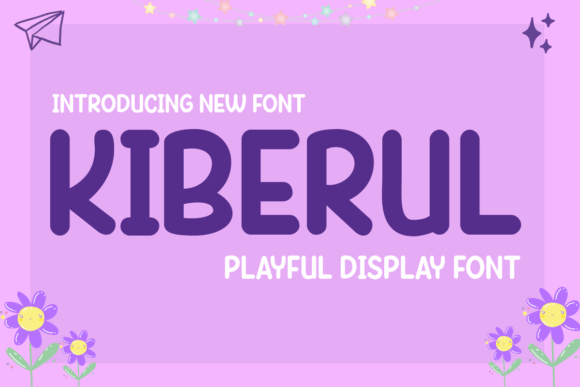
Embark on a typographic adventure with Kiberul Font, the ultimate display typeface that ignites your imagination and brings a burst of playfulness to your designs. Step into a world where fonts dance with joy, expressing a sense of lightheartedness and fun that captivates your audience. Kiberul Font is your creative companion for projects that demand a touch of whimsy, transforming children's books, vibrant posters, and playful branding into masterpieces of visual delight. With its unique characters and charming style, Kiberul Font elevates your designs, making them exude a sense of playfulness that instantly captivates your audience.
Unleash your creativity and let your imagination soar as you craft cheerful invitations, captivating logos, and eye-catching social media graphics with Kiberul Font. This font is your gateway to creating designs that stand out, leaving an indelible mark on your audience. Add a splash of joy and humor to your projects, and watch as they come alive with this delightful typeface. Embrace the playful spirit of Kiberul Font today and let your designs dance with laughter, lightness, and pure creative bliss.
Kiberul Font – Where Playfulness Meets Typography!